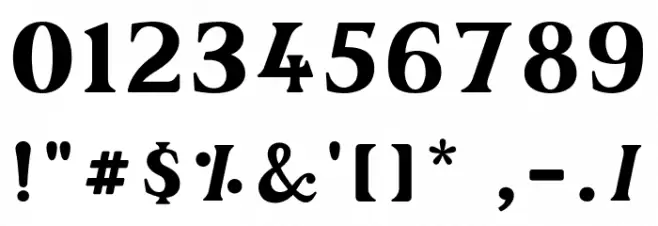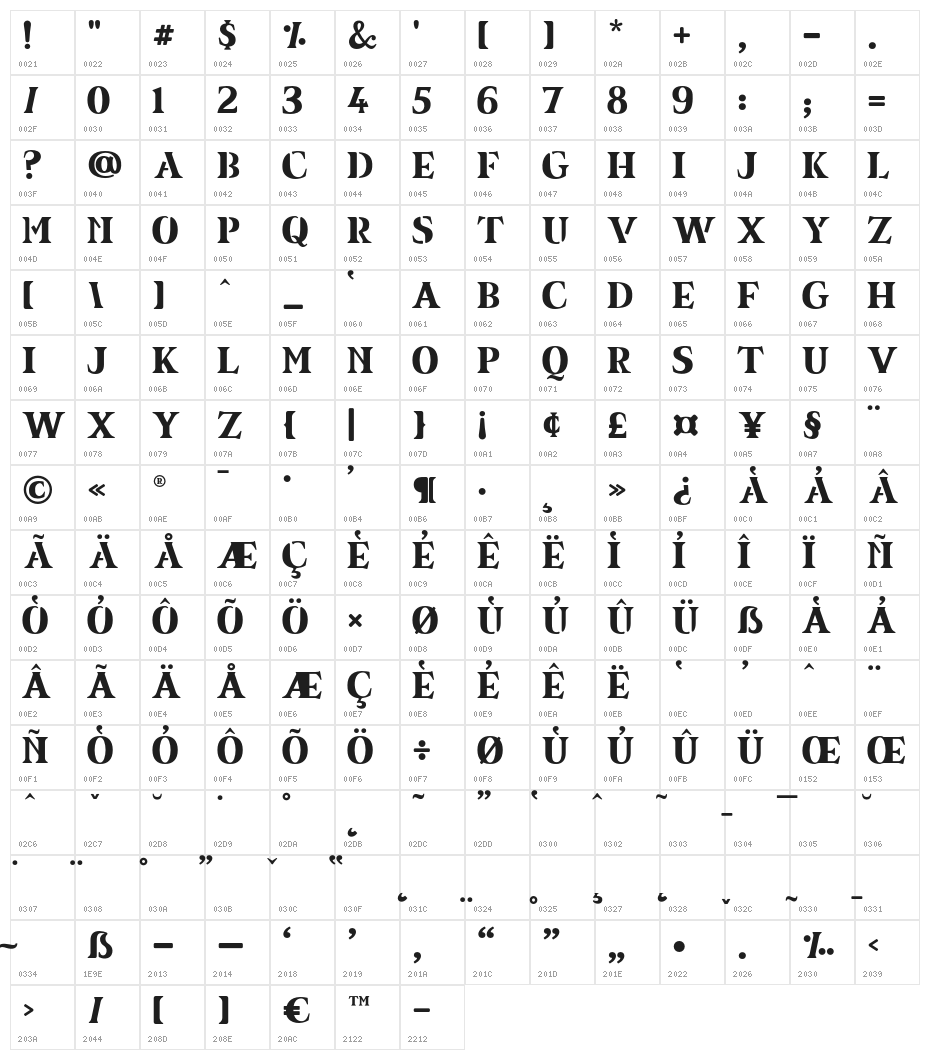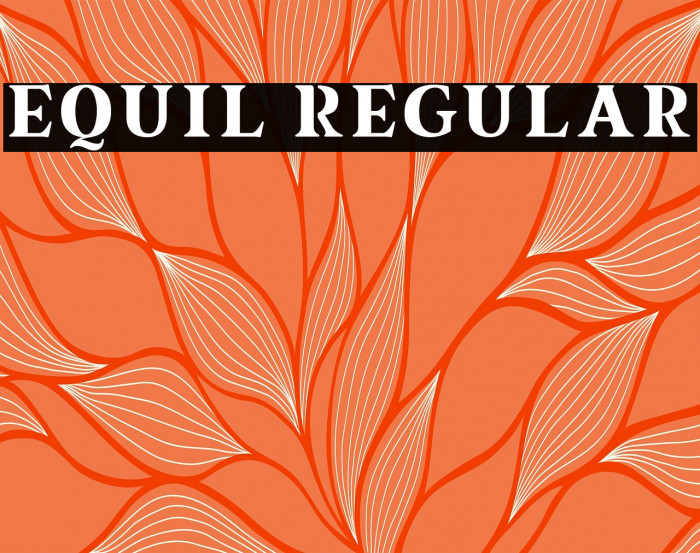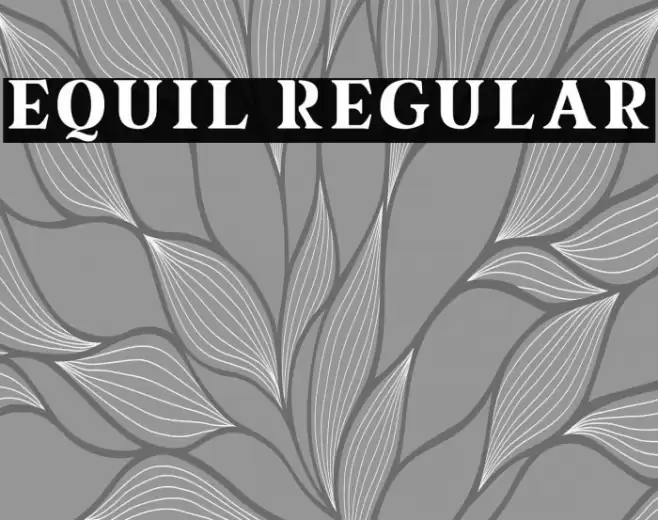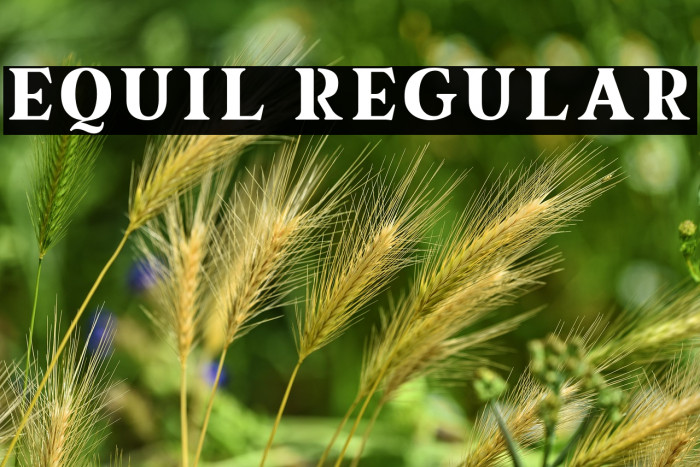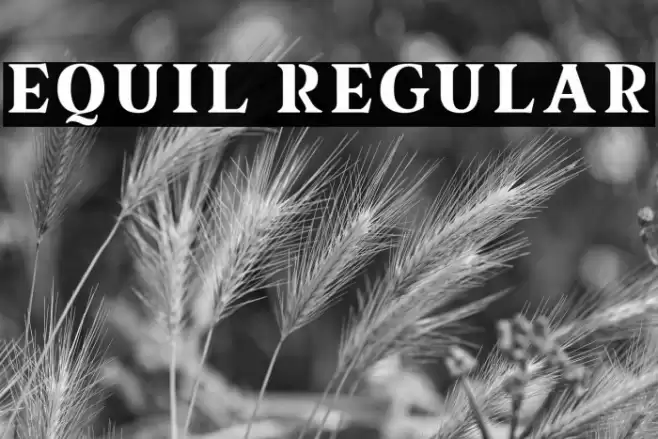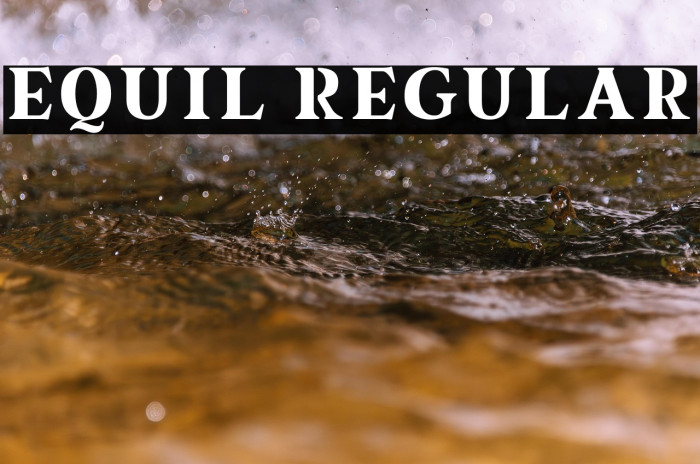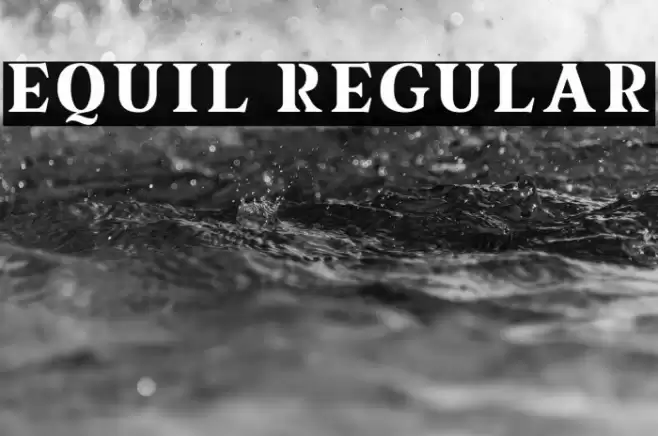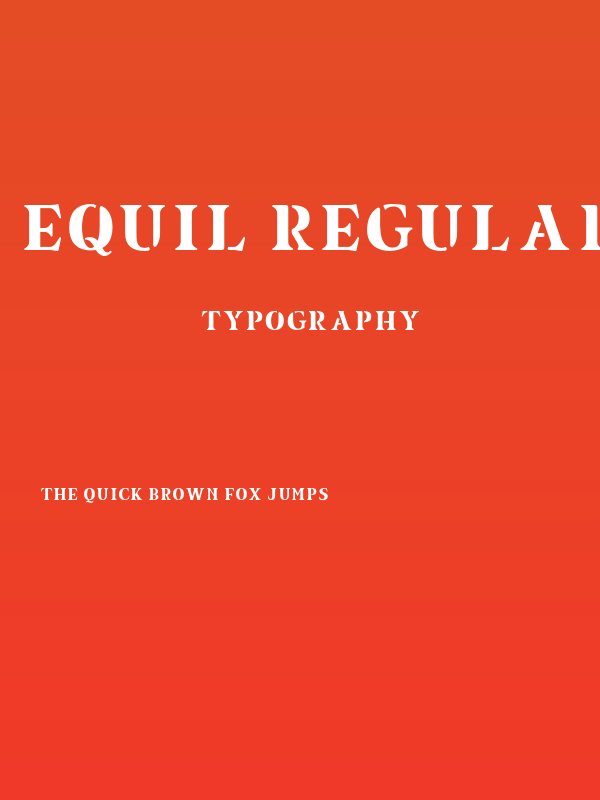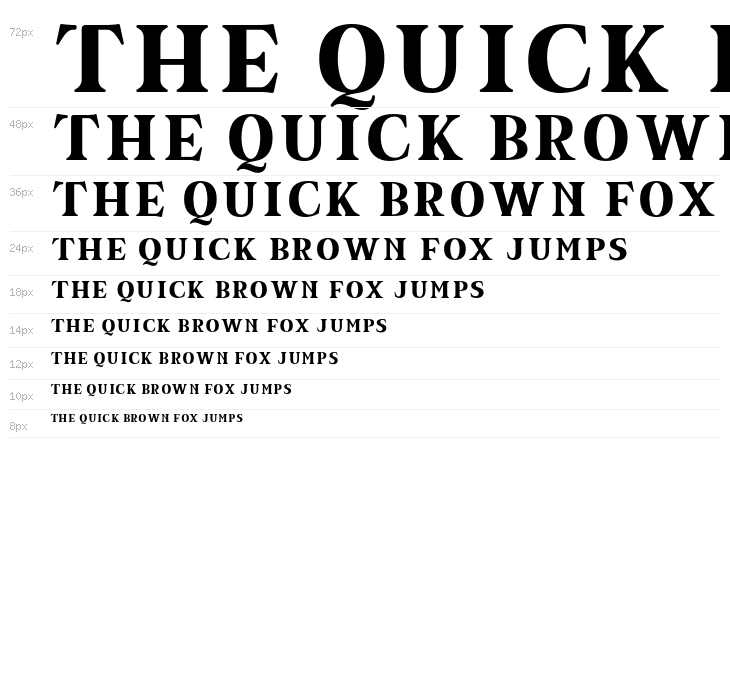
equil Regular Font
equil Regular Description
This font features a bold and impactful design with strong, thick strokes that convey a sense of authority and presence. The characters are well-defined with sharp edges and a slight contrast in stroke thickness, adding a touch of elegance to its overall appearance. The uppercase letters are particularly striking, with a uniform height that ensures readability and consistency. The numerals are equally bold, making them stand out prominently. Special characters are included, maintaining the same bold style, which makes them suitable for a variety of uses. The font's design is versatile, making it suitable for both modern and classic applications.
| Proposed Projects | Ideal for headlines, branding, posters, and any project requiring a strong visual impact. |